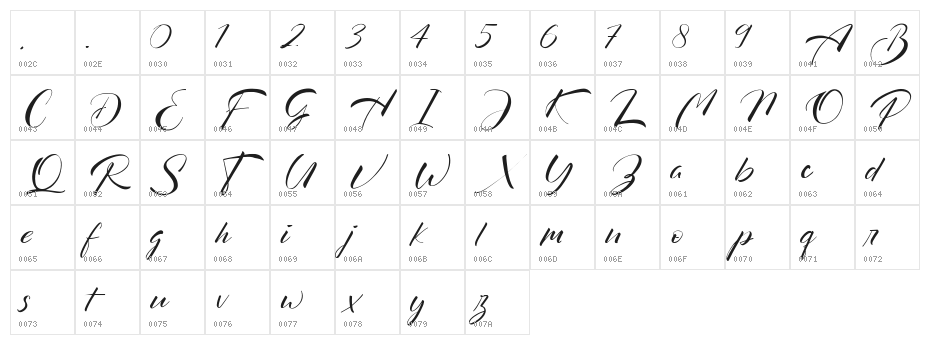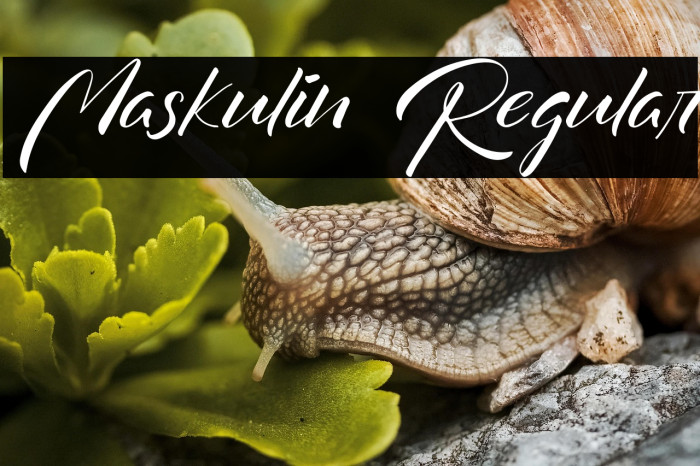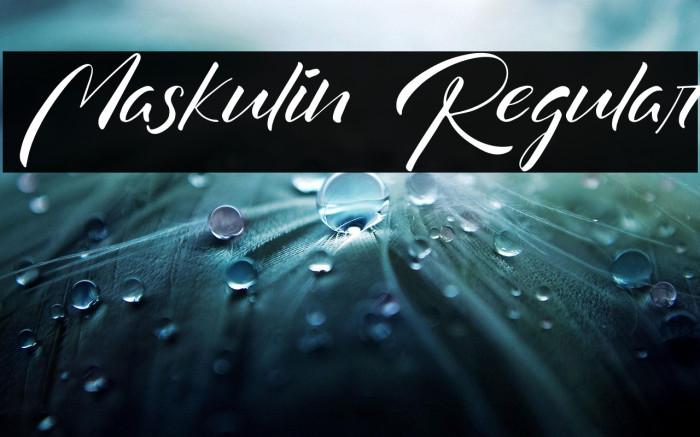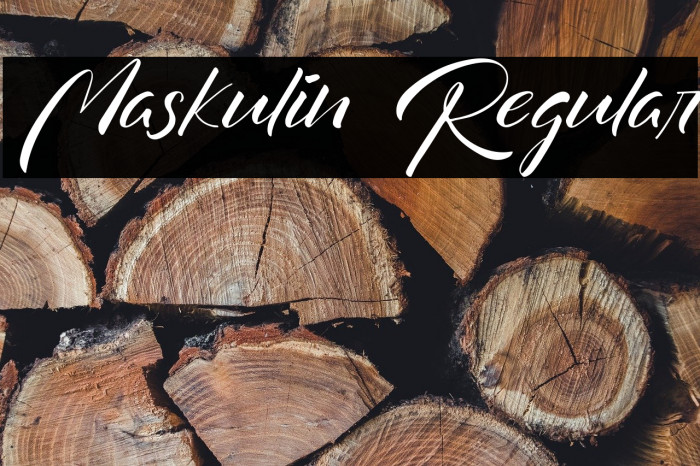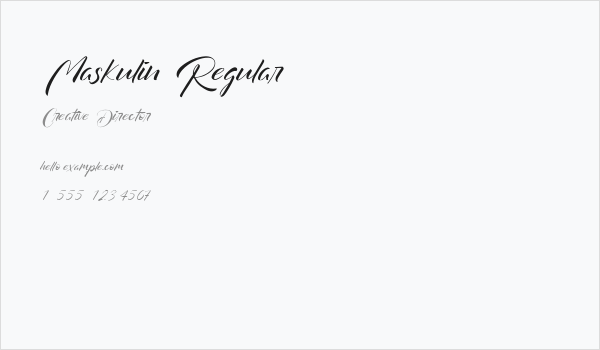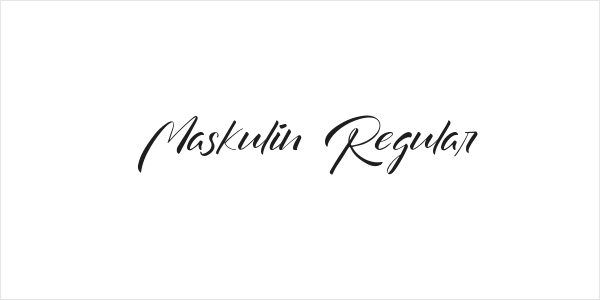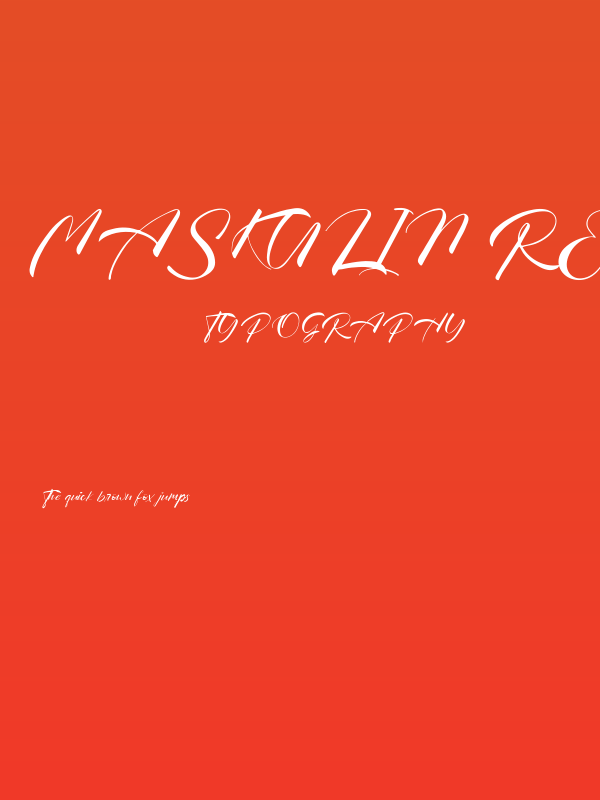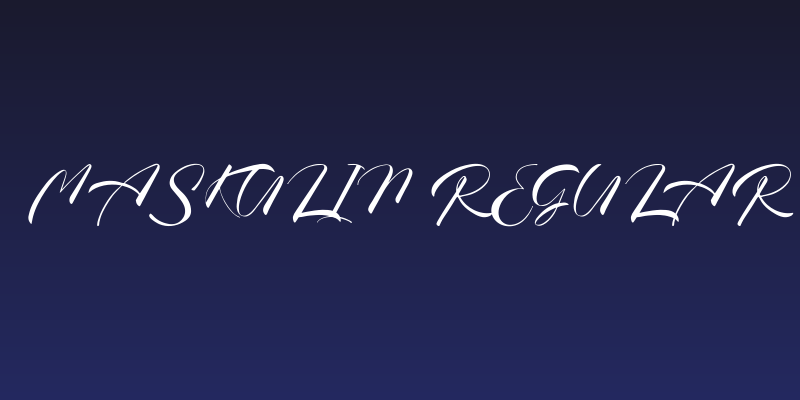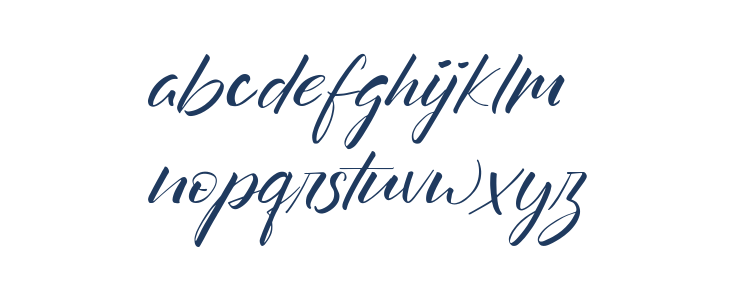
Maskulin Regular Font
Maskulin Regular Description
This font features an elegant and flowing script style, characterized by its smooth, cursive strokes and a sense of fluidity. The uppercase letters are slightly more ornate, with sweeping lines and a touch of flair, while the lowercase letters maintain a consistent, graceful appearance. The numerals are designed to match the script's overall aesthetic, providing a cohesive look. The special characters are integrated seamlessly, enhancing the font's versatility. This font exudes a sense of sophistication and is suitable for projects that require a touch of elegance.
Overall StyleElegant
Use CaseHeadlines, Invitations, Branding
Proposed ProjectsIdeal for wedding invitations, elegant branding, personal stationery, and decorative headlines.